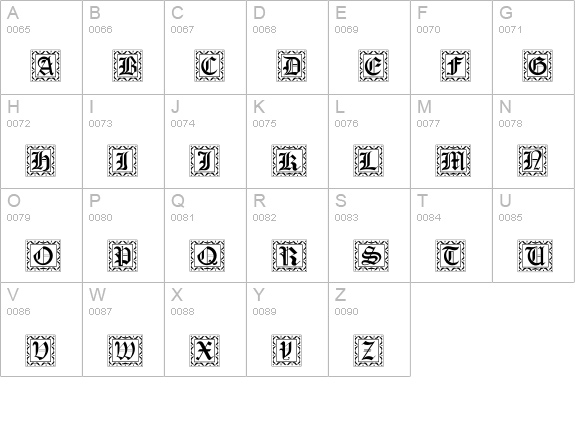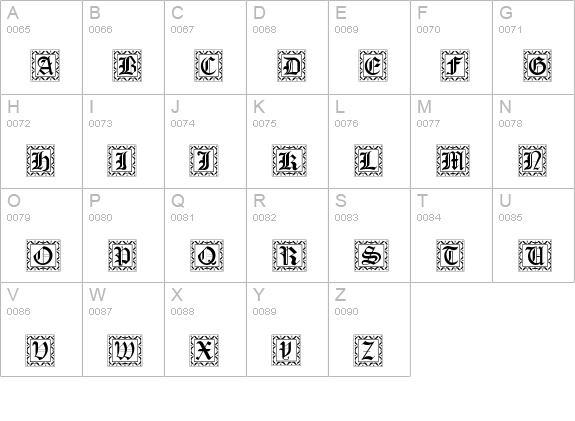
DropCaps Font Details
Introducing DropCaps font, a versatile and eye-catching typeface that adds a touch of elegance to any design project. Featuring beautifully crafted drop caps with intricate details, this font exudes sophistication and style. The unique design of DropCaps makes it perfect for editorial layouts, book covers, branding, and more. What sets DropCaps apart is not only its stunning visual appeal but also its versatility. Whether you're looking to make a bold statement or add a subtle touch of sophistication, this font has you covered. With its wide range of characters and glyphs, DropCaps offers endless possibilities for creativity and customization. Best of all, DropCaps is available for free download at FontsMarket.com. That's right – you can elevate your design projects with this exquisite font without spending a dime. So why wait? Download DropCaps today and unleash your creativity with this elegant and captivating typeface.